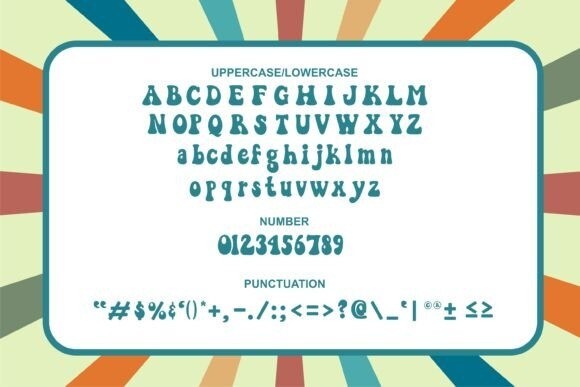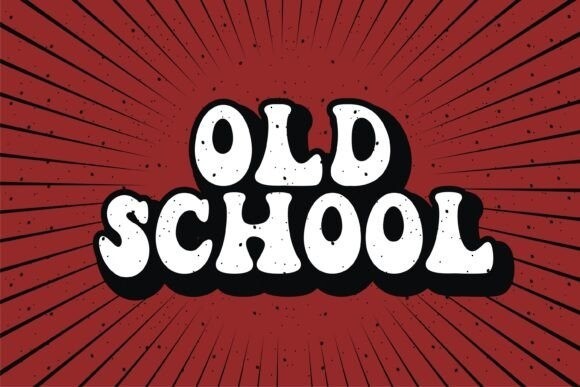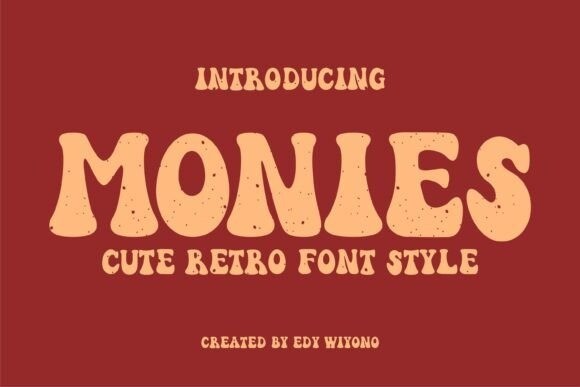
Monies Font
Monies Font is a retro, pop, and fun typeface, this font is for designs with a retro signature, old-fashioned and vibrant. Monies is a retro groovy font, inspired by retro bold typography. This font is perfect for a design that makes it more attractive and playful. Monies is suitable for book covers, posters, packaging, merchandise, logotype, and much more.